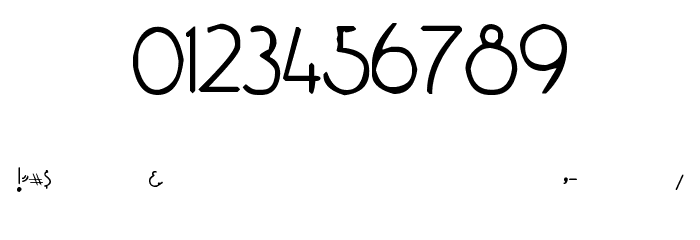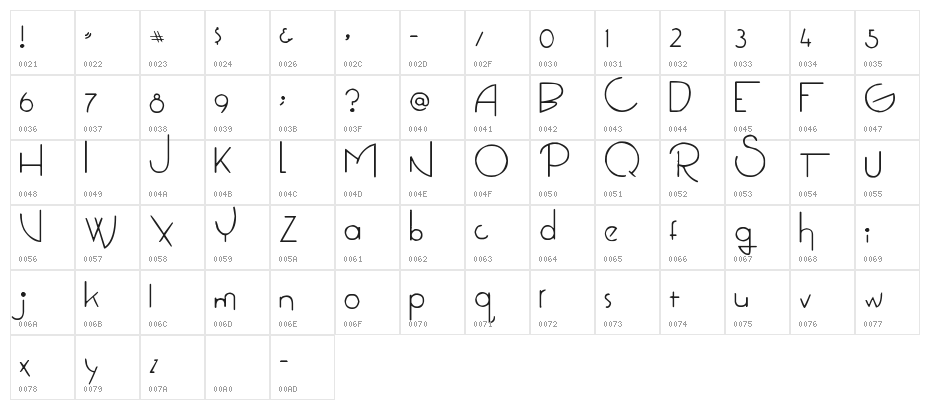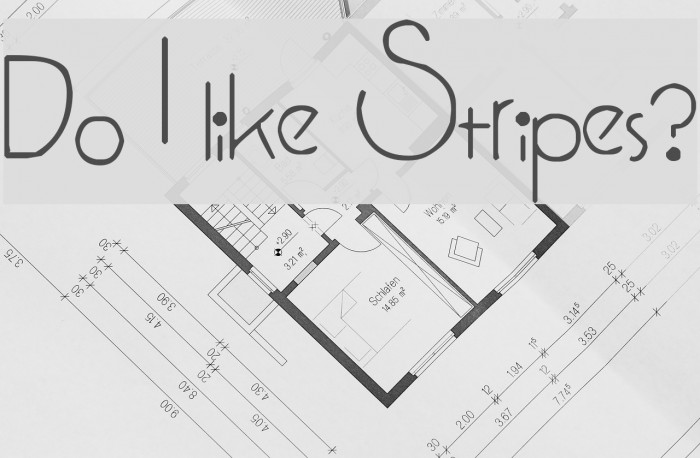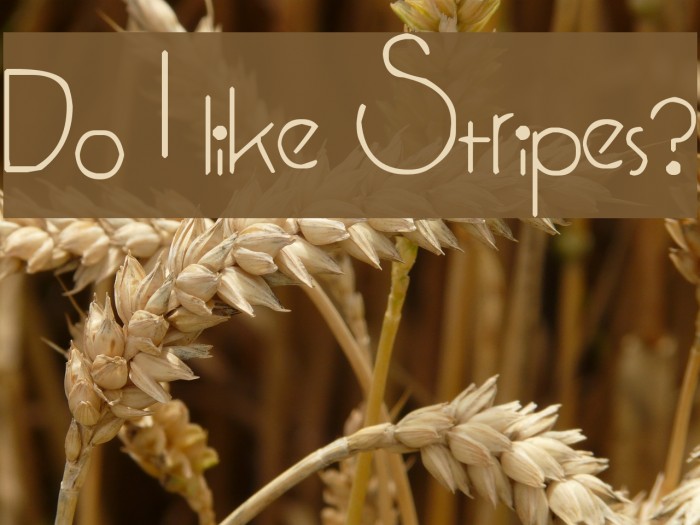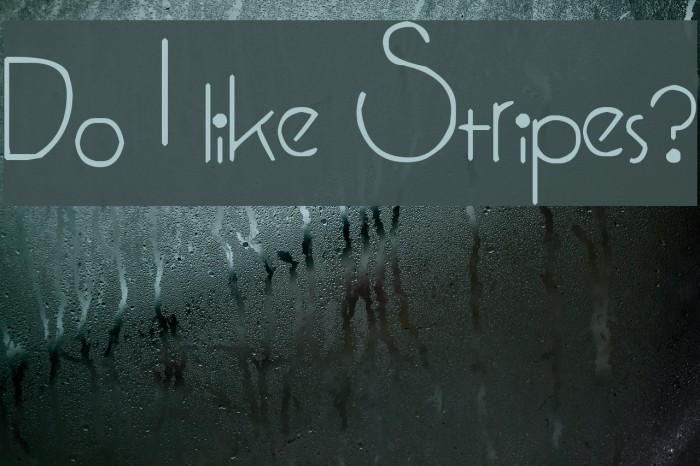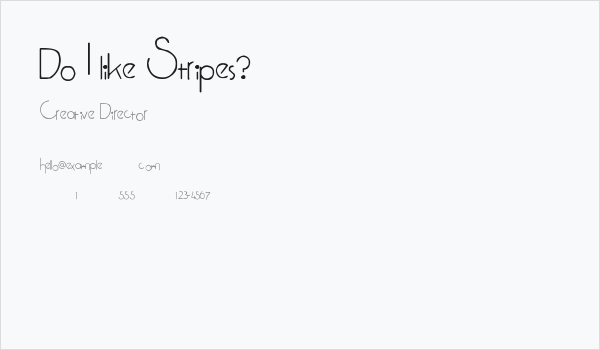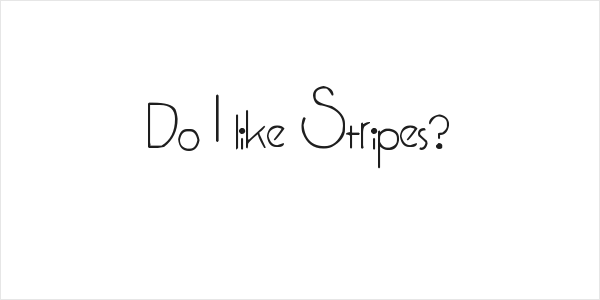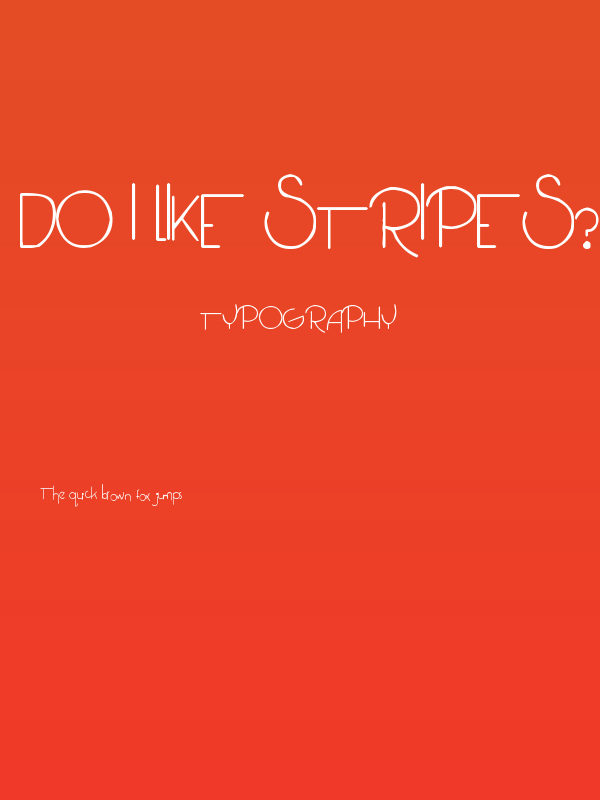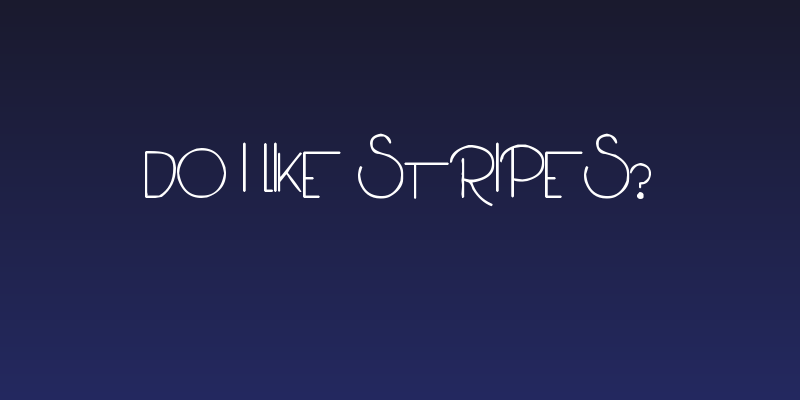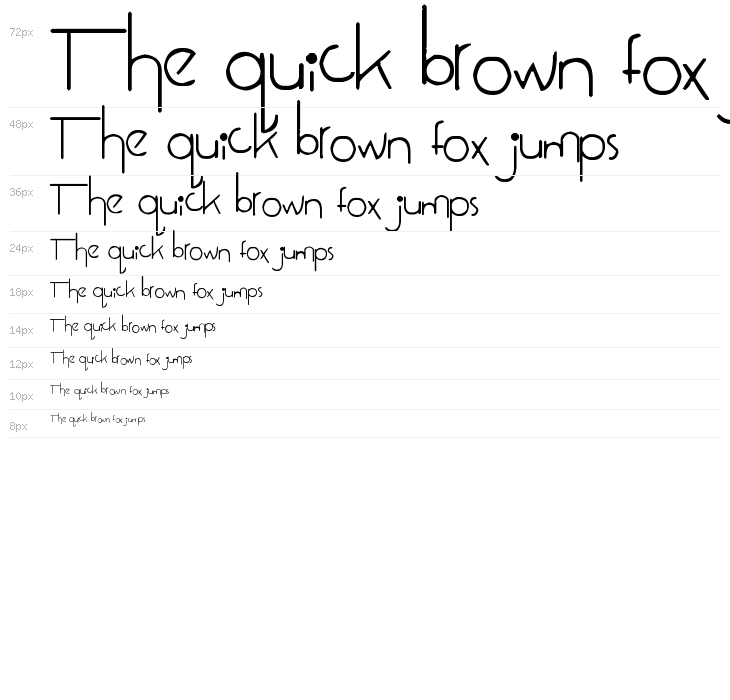
Do I like Stripes? Font
Do I like Stripes? Description
This font features a unique and playful design with a modern twist. The characters are elongated and slightly curved, giving them a whimsical and artistic appearance. The uppercase letters are tall and narrow, while the lowercase letters maintain a consistent height, creating a harmonious balance. The numbers are distinct and easy to read, with a similar style to the letters. Special characters are creatively integrated, adding to the font's overall charm. The thin strokes and minimal contrast make it suitable for a variety of design projects.
| Proposed Projects | Ideal for creative projects such as posters, invitations, branding, and logos where a whimsical and artistic touch is desired. |